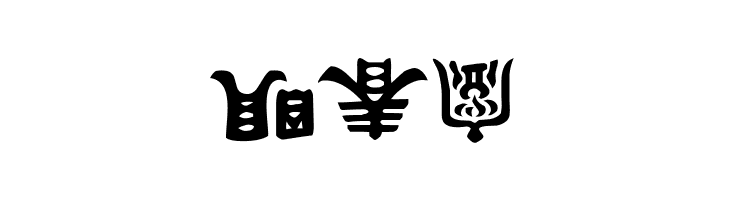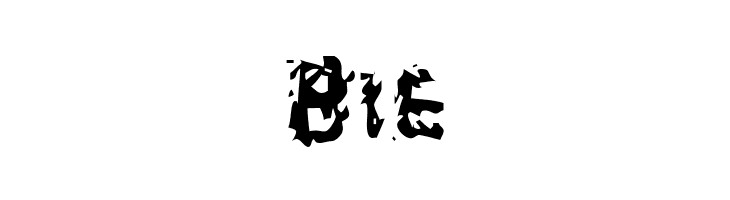
Arthur Font
Font by Rob Dobi - Toxic Type - www.dobi.nu
A bold, expressive font with sharp, angular strokes and a calligraphic influence.
Critical Mass Font
Font by Rob Dobi - Toxic Type - www.dobi.nu
A bold, chaotic, and jagged font with a distressed, hand-drawn appearance.
Ass Crack Font
A bold, distressed font with a rugged, grunge-like texture.
Mister Sinister Font
A bold, edgy font with sharp, jagged edges and a rebellious appearance.
Kemuri Font
Font by Rob Dobi - Toxic Type - www.dobi.nu
An intricate, decorative font with an ancient, hieroglyphic style.
Puke Font
A distressed, chaotic font with a grunge-like aesthetic and bold strokes.
Stab Wound Font
A distressed, chaotic font with jagged, torn edges for an edgy look.
The Drips Font
A bold, dripping font with a graffiti-inspired, artistic style.